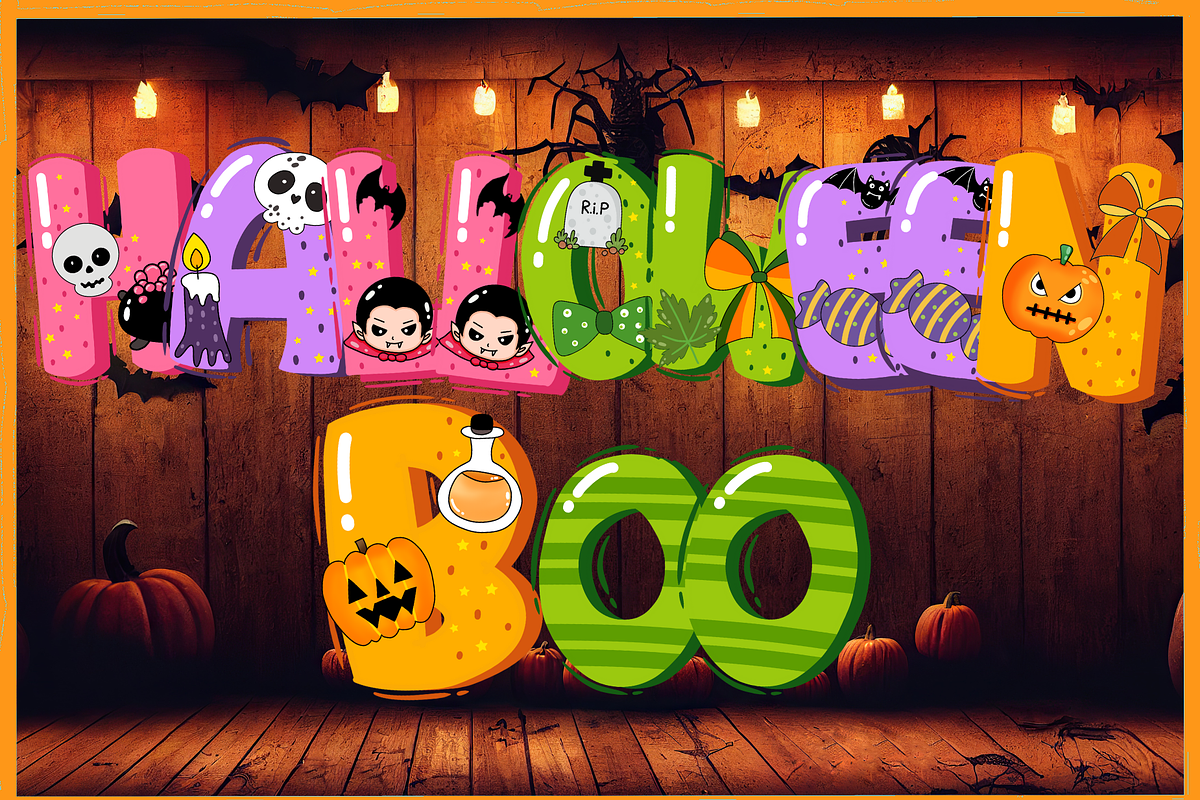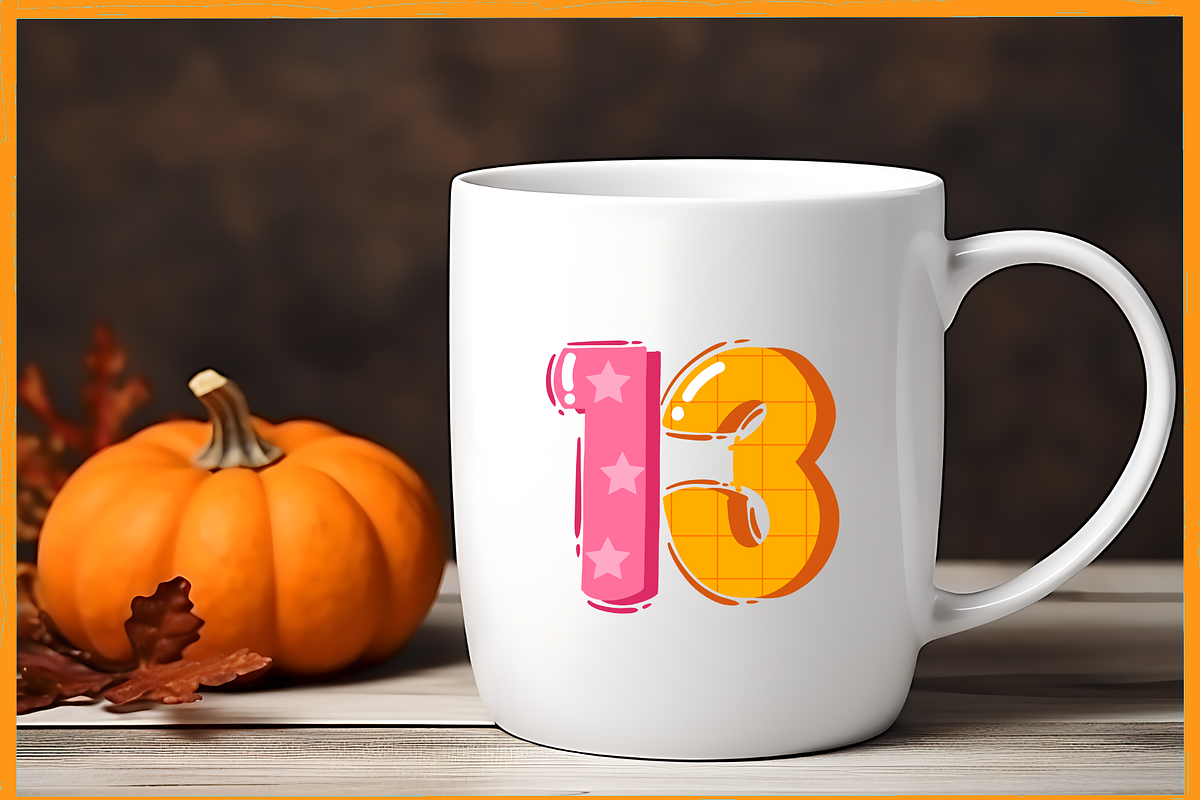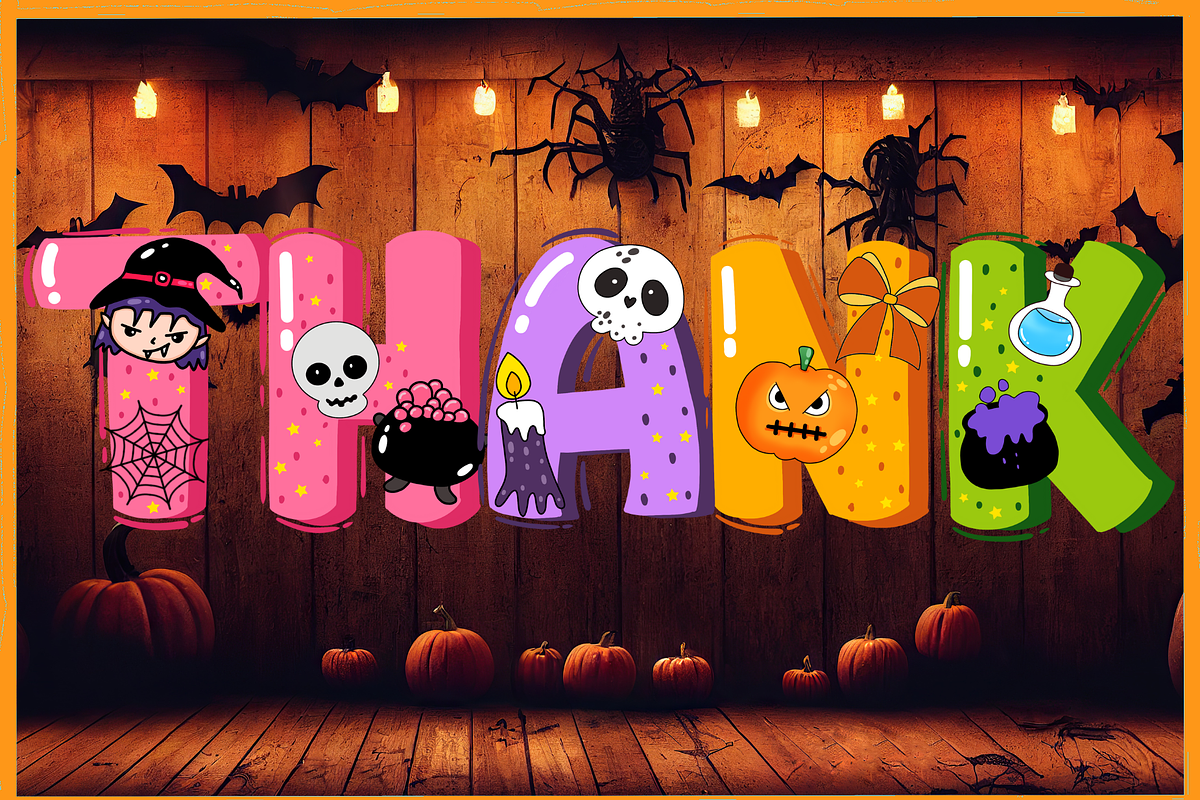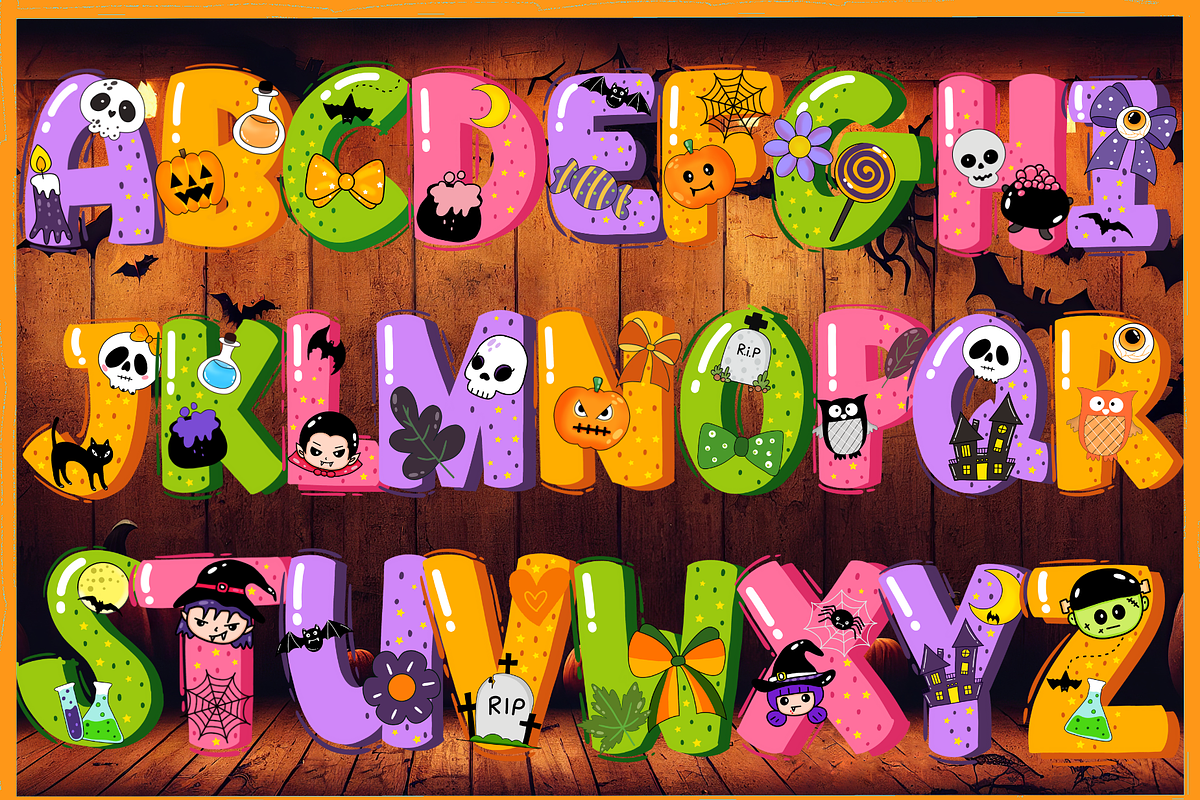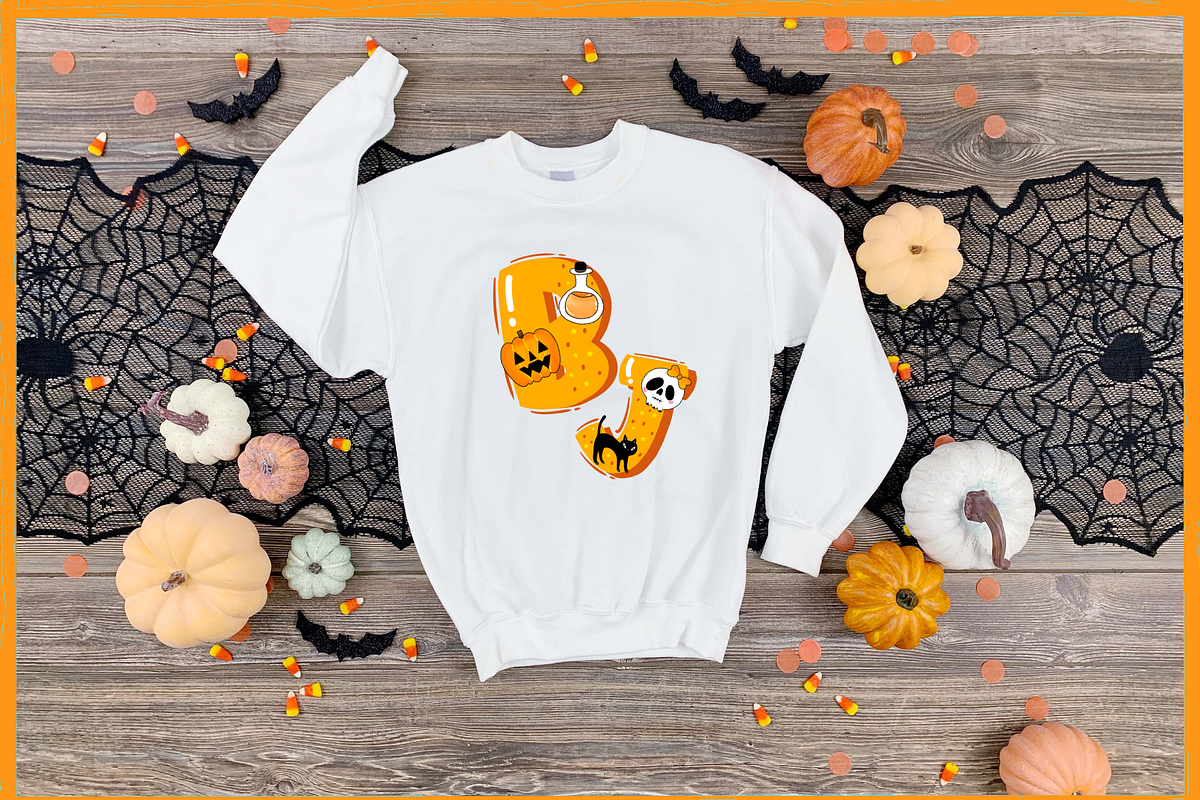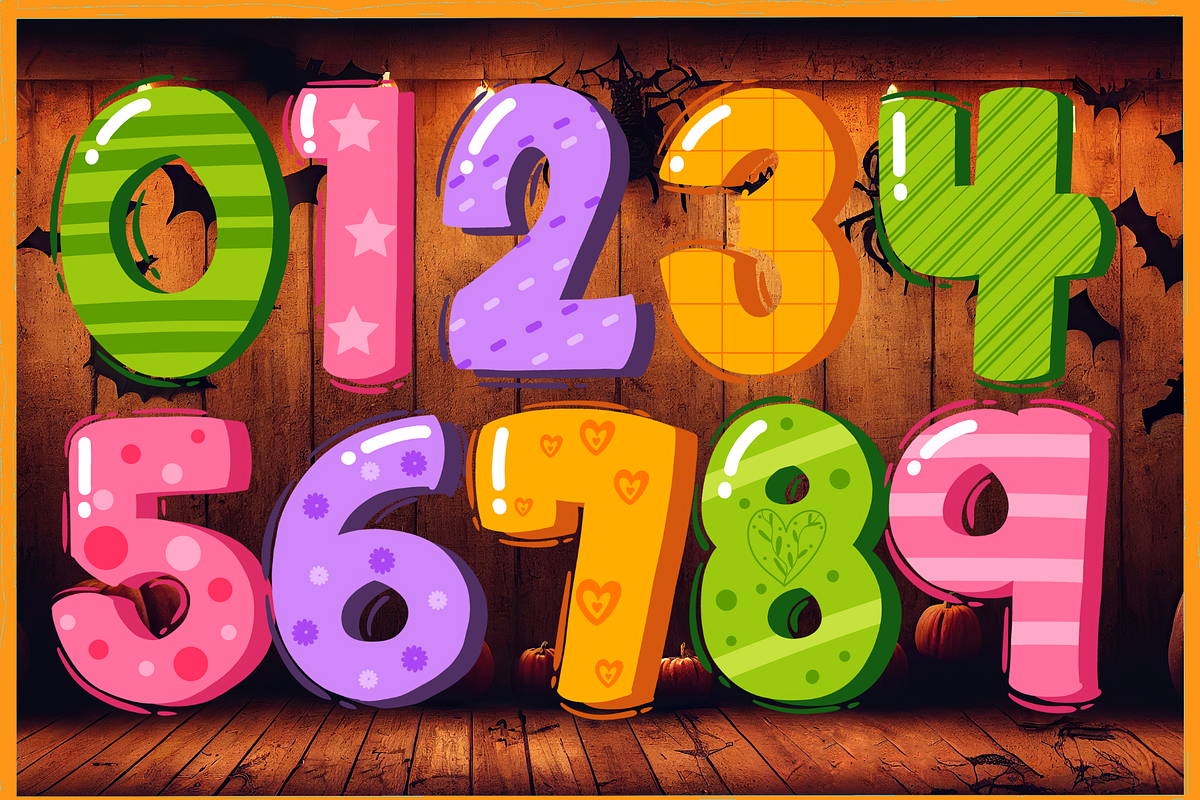
Halloween Boo-PNG fonts
Halloween Boo Font
Halloween Boo is a spooky and quirky decorative font. It will add an incredibly joyful touch to your designs. Add this beautiful display font to each of your creative ideas and notice how it makes them stand out!